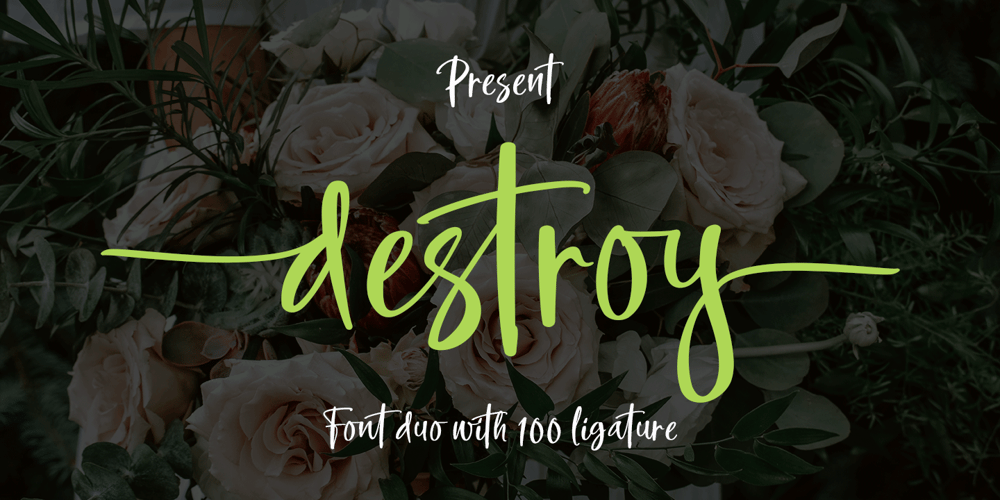
Destroy
Destroy font
Destroy Font Family was designed by Fadhil Aqsa and published by Meutuwah. Destroy contains 2 styles and family package options. INTRODUCINGDestroy Brush is handwritten font with a modern Brush feel.Destroy Brush is perfect for modern projects, headings, blogs, logos, brandings, web design, card, coffee shop, t-shirt, invitations and more!Programs that support in this font is a Microsoft Office Adobe Photo Shop, Adobe Illustrator, Adobe Indesign, and Corel Draw, badges etc.Thank You Font Lovers….!